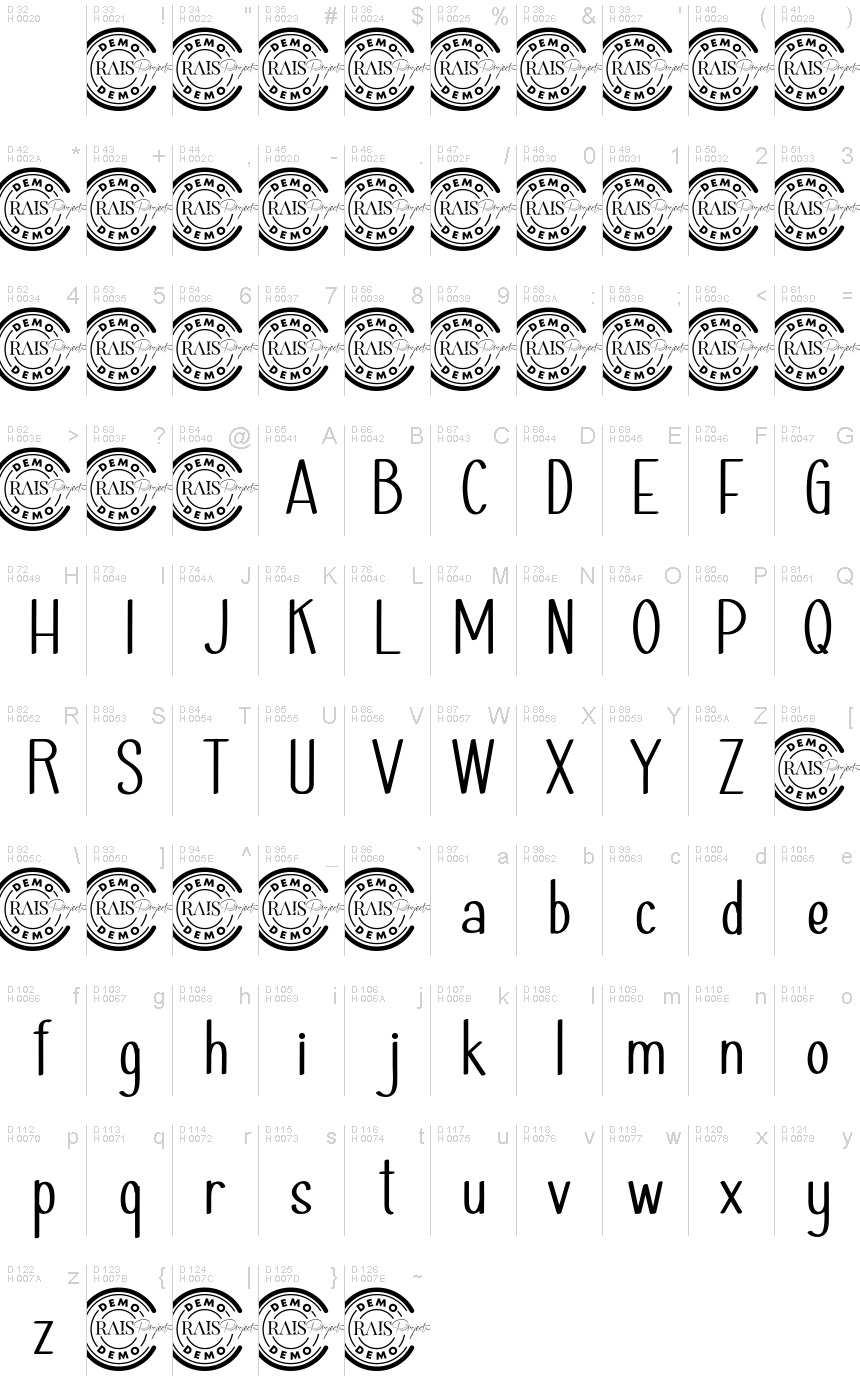
Haiesley Sans, crafted by RaisProject, is a sophisticated display font that exudes a modern and chic vibe. Its slender and elegant strokes give it a refined air, perfect for designs that aim to convey style and exclusivity. The condensed nature of Haiesley Sans allows for impactful headlines without occupying too much space, making it an ideal choice for editorial design where space is at a premium.
The font's clean lines and minimalist aesthetic lend themselves well to branding, high-end product packaging, and fashion spreads where the visual impact of typography is crucial. Haiesley Sans' ability to stand out while maintaining readability makes it a versatile addition to any designer's toolkit, ensuring messages are not only seen but felt.